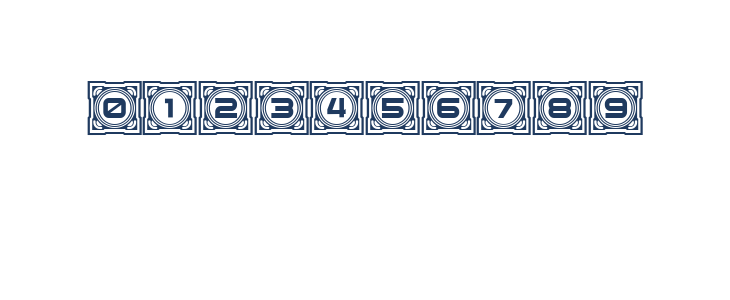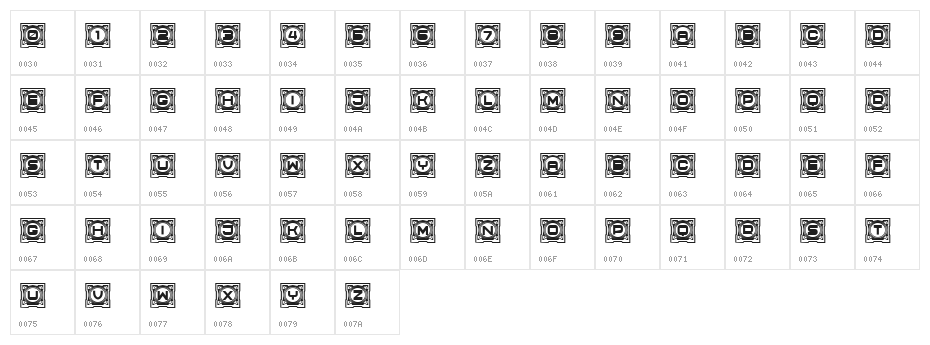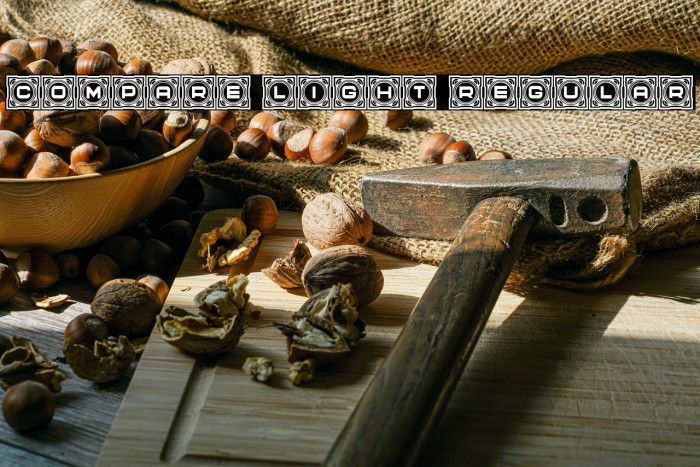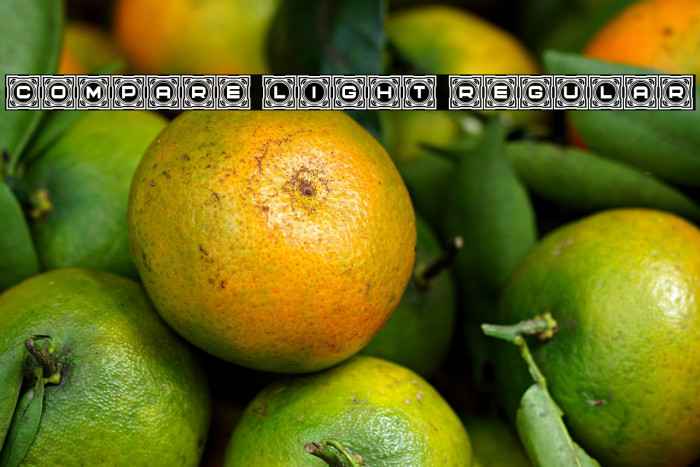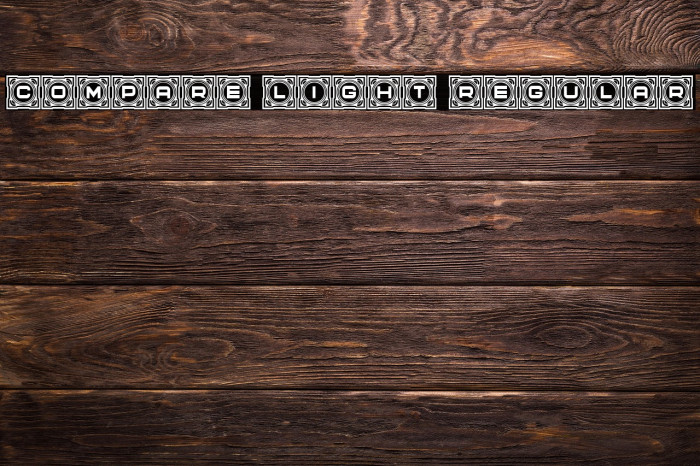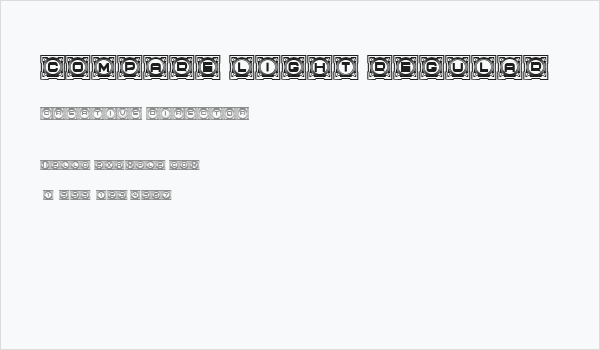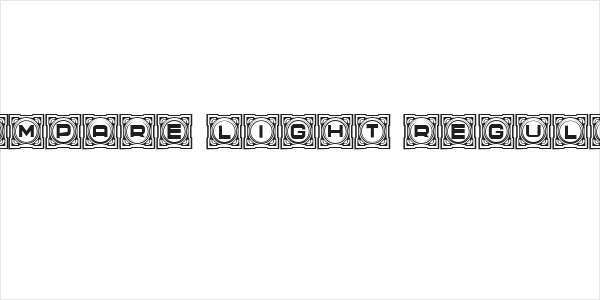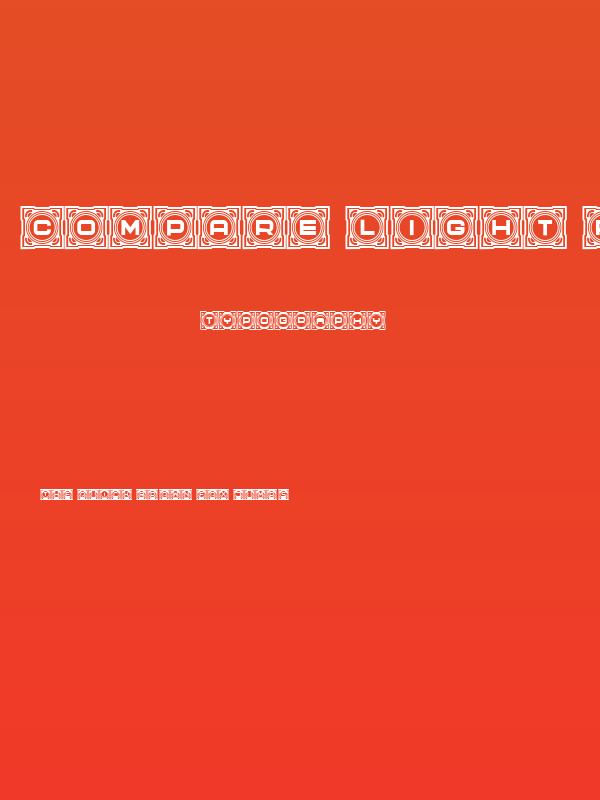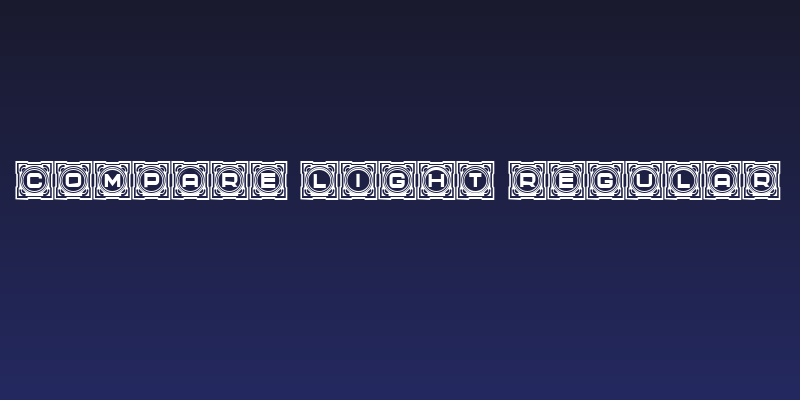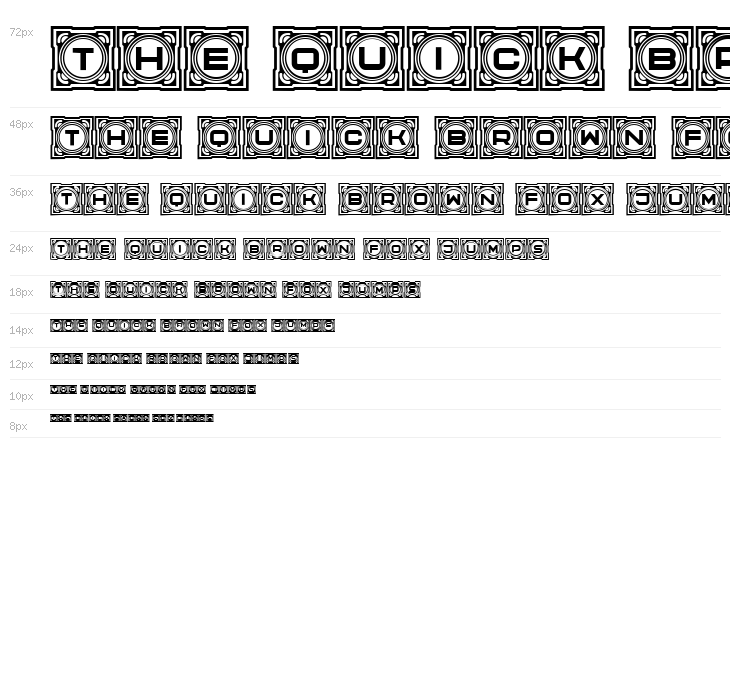
Compare Light Regular Font
Compare Light Regular Description
This font features a bold and decorative style, with each character encased in an ornate, square frame. The letters are uppercase and have a geometric, block-like appearance, which adds to the overall decorative feel. The numbers follow the same design, maintaining consistency across the character set. The intricate border around each character gives it a unique, eye-catching look, making it suitable for projects that require a strong visual impact. The font's design is reminiscent of vintage or retro styles, with a modern twist due to its geometric precision.
| Proposed Projects | Ideal for posters, album covers, branding, and any project that requires a striking and decorative typeface. |